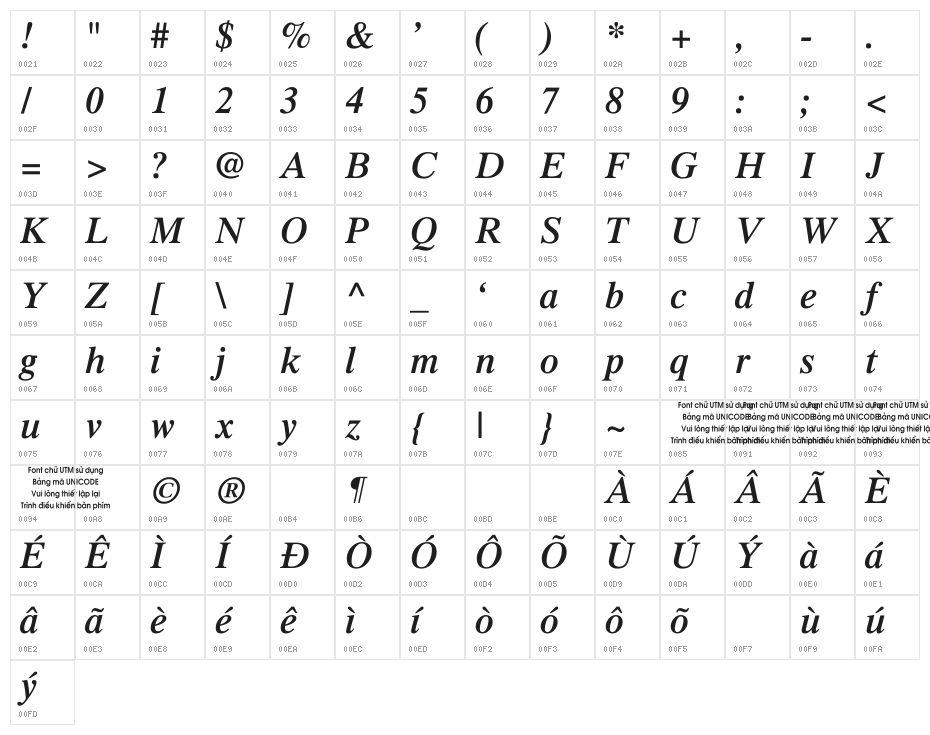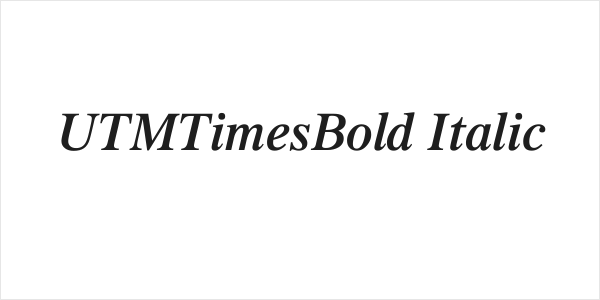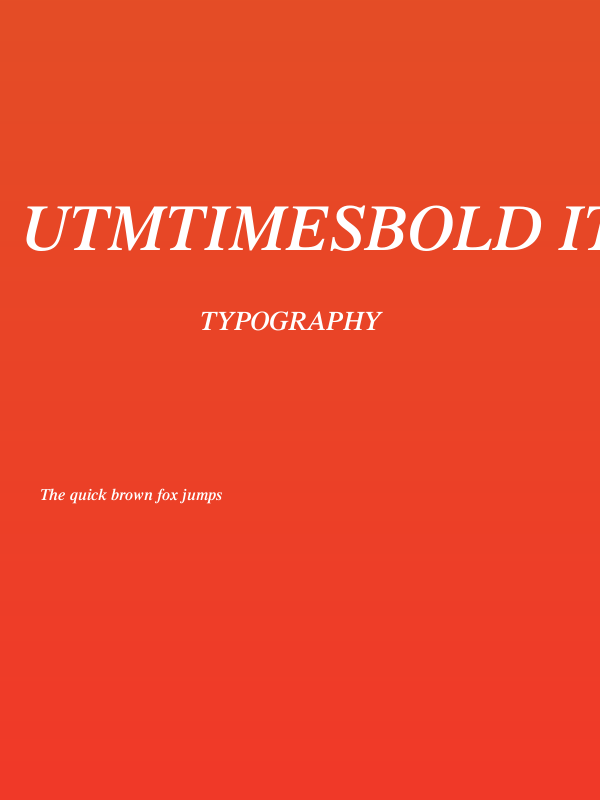
UTMTimesBold Italic Font
UTMTimesBold Italic Description
This font exhibits a classic and elegant style with a strong emphasis on readability and sophistication. The italicized form adds a sense of motion and fluidity, making it suitable for both formal and creative applications. The characters are well-defined with a moderate contrast between thick and thin strokes, enhancing legibility. The serifs are pronounced yet refined, contributing to the font's timeless appeal. This font is versatile, capable of conveying professionalism in business documents while also being stylish enough for invitations and branding.
| Proposed Projects | Ideal for formal documents, invitations, branding, and editorial design. |